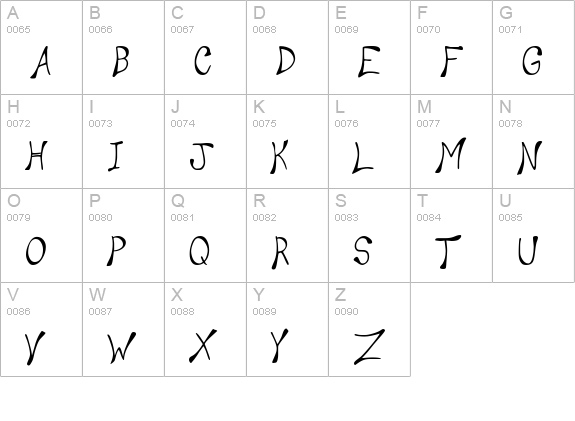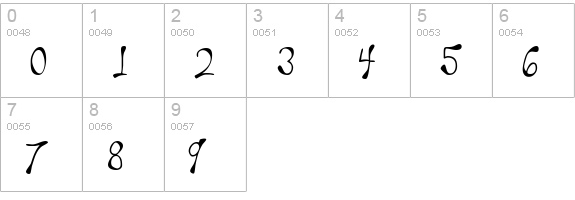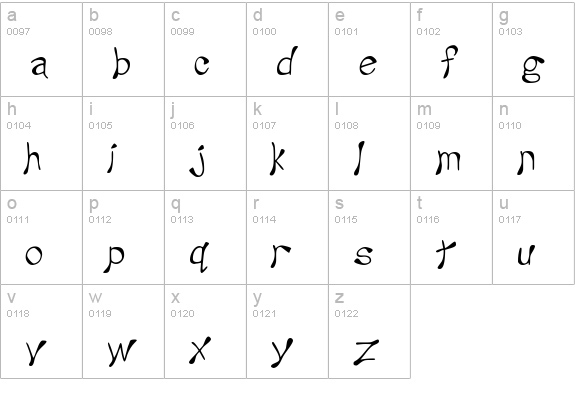
Wesley Font Details
Introducing Wesley, a captivating and versatile font that effortlessly merges elegance with modernity. This distinctive typeface is a testament to the skillful craftsmanship of its creator, showcasing a harmonious blend of sleek lines, refined curves, and an overall sense of sophistication. Wesley possesses a unique charm that sets it apart from other fonts, making it the perfect choice for a wide range of creative projects. Whether used for branding, advertising, packaging, or editorial design, this font effortlessly captures attention and leaves a lasting impression. What makes Wesley even more impressive is its accessibility. The best part? It's completely free! This means that anyone can harness the power of this remarkable font without any restrictions. To obtain this font and unlock its full potential, simply visit FontsMarket.com, where it is freely available for download. With Wesley, the possibilities are endless. Its versatility ensures that it can be used across various mediums, from print to digital, guaranteeing a flawless and captivating visual experience. Whether you're aiming for a sophisticated and timeless look or a contemporary and edgy vibe, Wesley has got you covered. Every letter within Wesley has been meticulously crafted to perfection, ensuring a seamless and visually pleasing reading experience. Its legibility remains uncompromised, making it suitable for both large headlines and smaller body texts. Additionally, Wesley offers a wide range of weights and styles, providing even more flexibility when it comes to designing. Whether you prefer a bold and commanding presence or a more delicate and subtle touch, this font has the perfect variation to suit your needs. So, why settle for ordinary when you can elevate your designs with the captivating charm of Wesley? Download this remarkable font for free at FontsMarket.com, and let your creativity soar to new heights. Discover a font that effortlessly captivates and leaves a lasting impression on every project, making Wesley the ultimate choice for discerning designers and creatives alike.